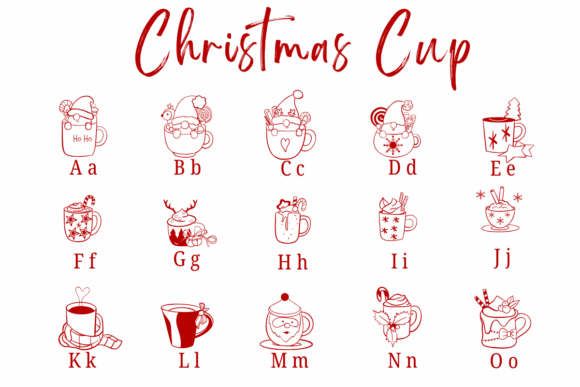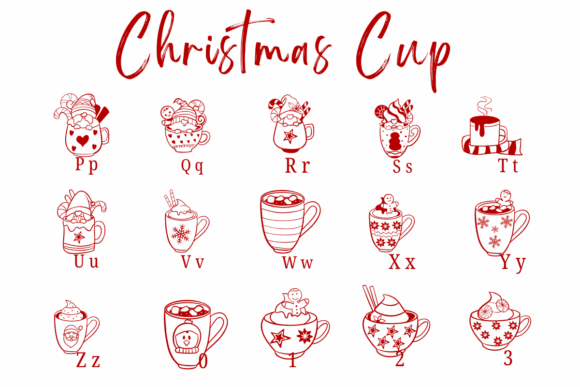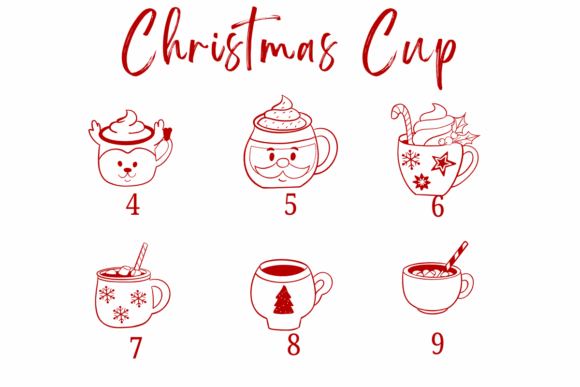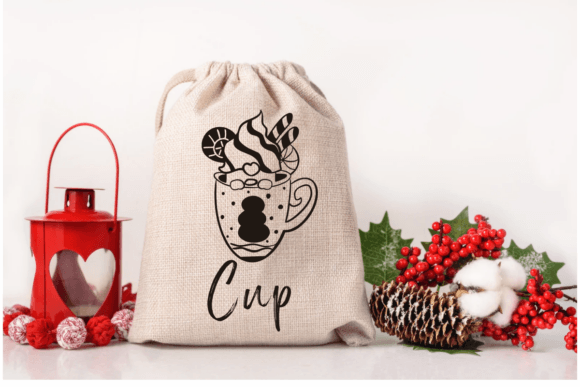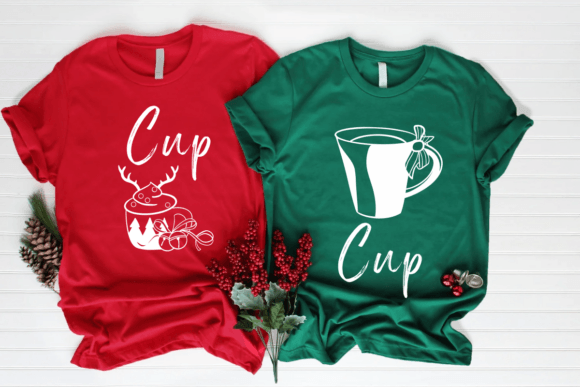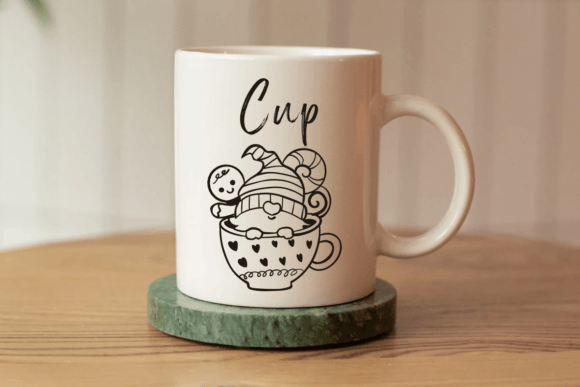
Introducing Christmas Cup Font: The Festive Dingbat Font for Your Holiday Projects
Are you looking for a unique and festive font to add a touch of holiday cheer to your creative projects? Look no further than Christmas Cup Font, a delightful dingbat font featuring adorable illustrations of festive mugs for hot drinks. This charming font is perfect for designers, crafters, and DIY enthusiasts who want to add a personal touch to their wedding invitations, decorations, logos, and other creative endeavors.
What is Christmas Cup Font?
Christmas Cup Font is a dingbat font that consists of intricately designed illustrations of festive mugs, perfect for hot chocolate, coffee, or tea. Each character in the font is carefully crafted to bring a sense of joy and festivity to your projects. The font is versatile and can be used for a wide range of applications, from digital designs to print materials.
How Can I Use Christmas Cup Font?
The possibilities are endless with Christmas Cup Font! Here are some ideas to get you started:
- Wedding Invitations: Add a touch of whimsy and romance to your wedding invitations with Christmas Cup Font. Use the festive mugs to create a custom illustration that sets the tone for your special day.
- DIY Crafts: Use Christmas Cup Font to create custom decorations, gift tags, and cards for your holiday celebrations.
- Decorations: Create festive signs, banners, and garlands using Christmas Cup Font to add a personal touch to your holiday decor.
- Logos and Branding: Use Christmas Cup Font to create a unique and memorable logo for your holiday-themed business or product.
Why Choose Christmas Cup Font?
Here are just a few reasons why Christmas Cup Font stands out from the rest:
- Unique and Festive: Christmas Cup Font offers a fresh and unique take on traditional holiday fonts. The illustrations of festive mugs are sure to bring a smile to anyone’s face.
- Versatile: The font is perfect for a wide range of applications, from digital designs to print materials.
- High-Quality: The font is designed with high-quality illustrations that will look great in any project.
Tips and Tricks for Using Christmas Cup Font
Here are some tips and tricks to help you get the most out of Christmas Cup Font:
- Experiment with Colors: Try pairing the font with different colors to create a unique and eye-catching design.
- Mix and Match: Combine Christmas Cup Font with other fonts to create a custom look that suits your project.
- Use it in Digital Designs: Use Christmas Cup Font in your digital designs, such as social media graphics, blog posts, and email newsletters.